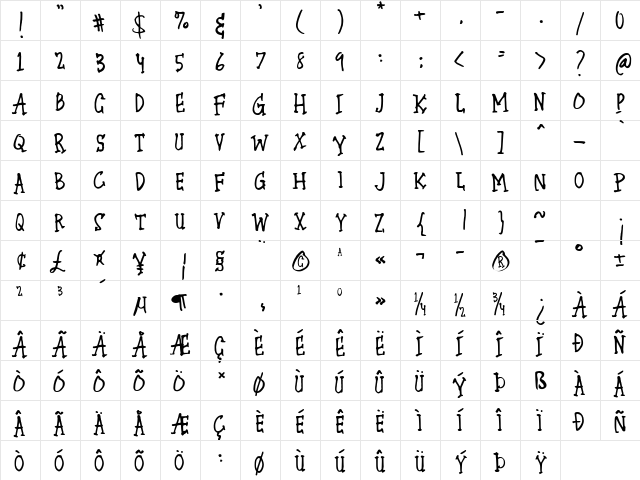
Jack Sketcher Regular
| Designer | deedeetype |
Design Context for Jack Sketcher Typeface
Jack Sketcher is a composed and adaptable typeface that performs quietly and consistently across a wide range of design contexts.